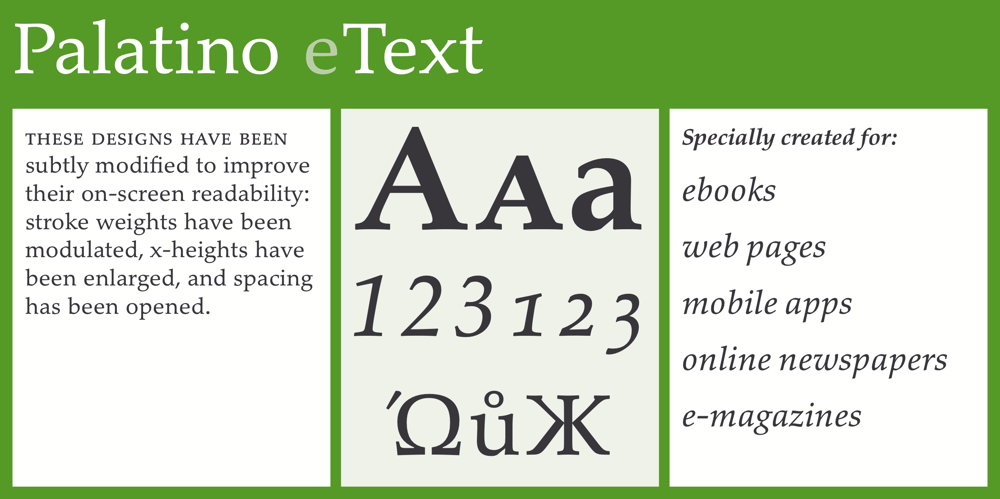
Palatino eText
Palatino eText font
Palatino eText Font Family was designed by Hermann Zapf, Toshi Omagari and published by Linotype. Palatino eText contains 4 styles and family package options. A clear and enjoyable reading experience hinges on the legibility of text copy, especially when reading on screen. This is why Monotype has developed the eText collection of fonts specifically tailored for the text-heavy display environments of e-readers, tablets, mobile devices, and the Web.